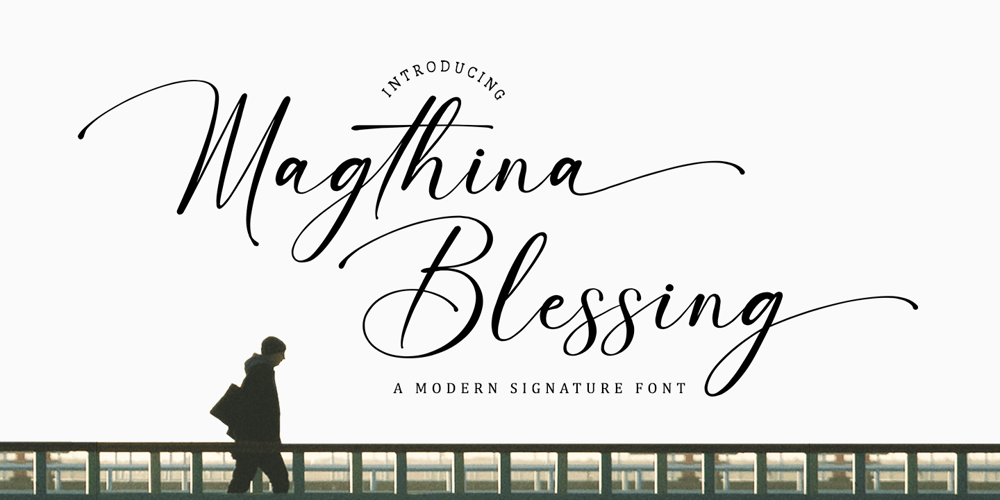
Magthina Blessing Font Family was designed by Muhammad Nazar and published by Bungletter. Magthina Blessing contains 1 styles and family package options. Introducing our new beautiful calligraphy font, Magthina Blessing! A beautiful script for those who want to perfect their designs with elegance and style.Magthina Blessing includes a full set of upper and lower case letters, common letters, numbers, punctuation, ligatures and multilingual. There are two different strokes for each lowercase letter so you can easily give your designs a natural, yet sophisticated, hand calligraphy look.Magthina Blessing is interesting because the typeface is pleasing to the eye, clean, feminine, sensual, glamorous, simple and very easy to read, due to the many luxurious letter relationships.You will get: (according to what is shown in my presentation or product cover)File Magthina Blessing If you need help or have any questions, let me know. I’m happy to help. Thanks & Happy Designing!